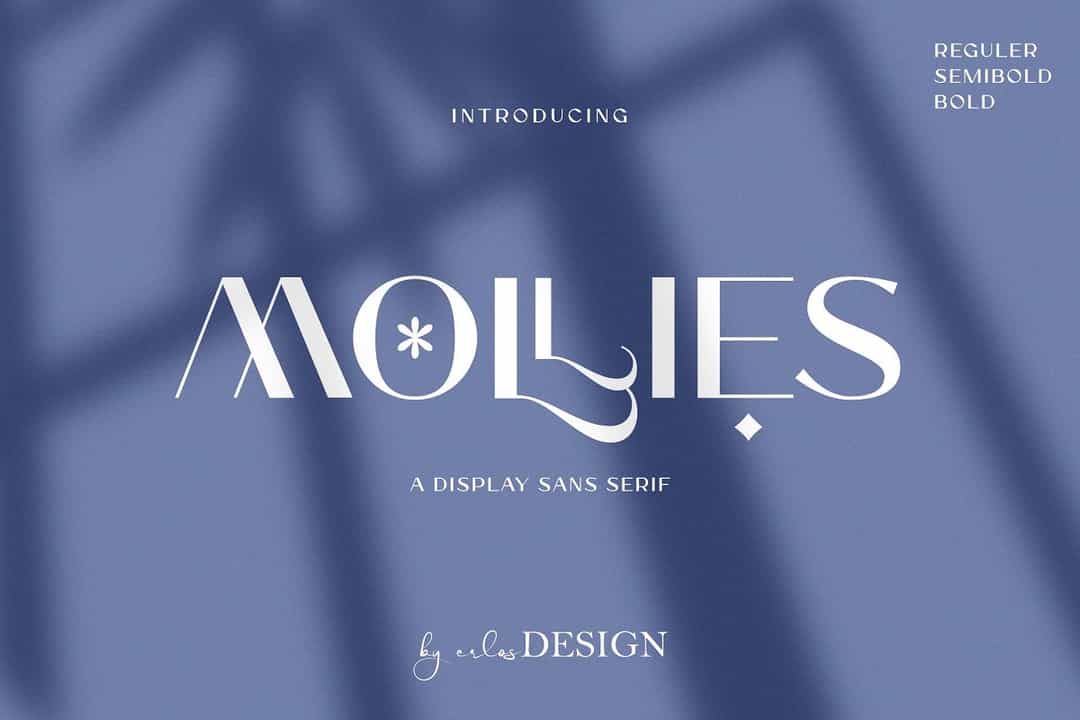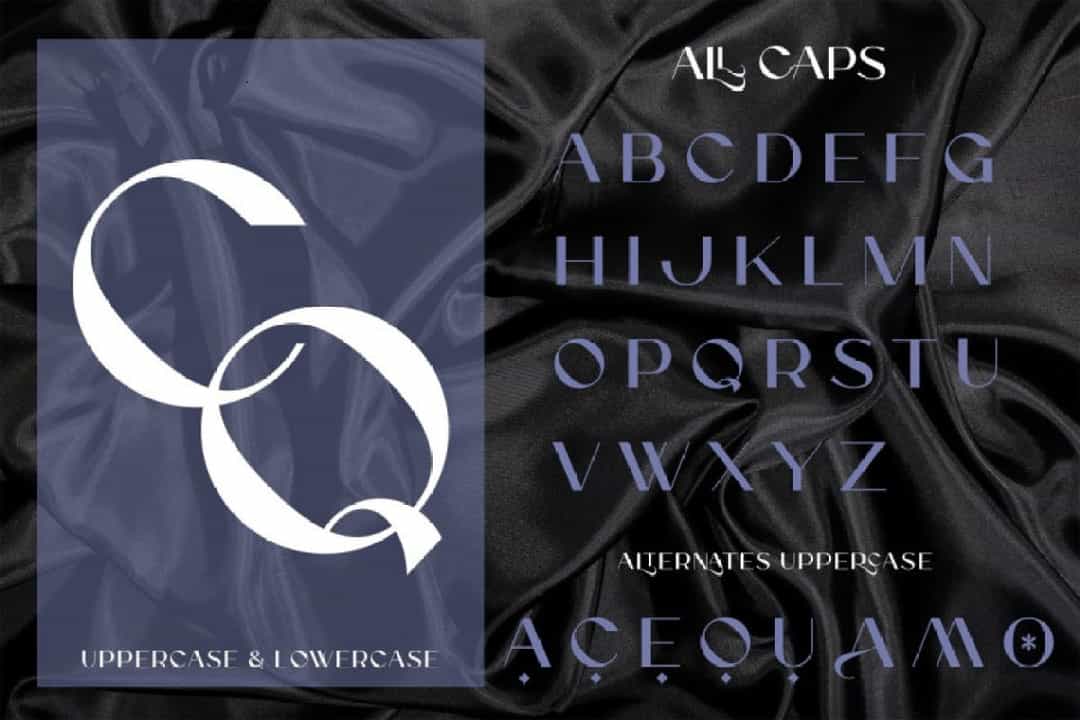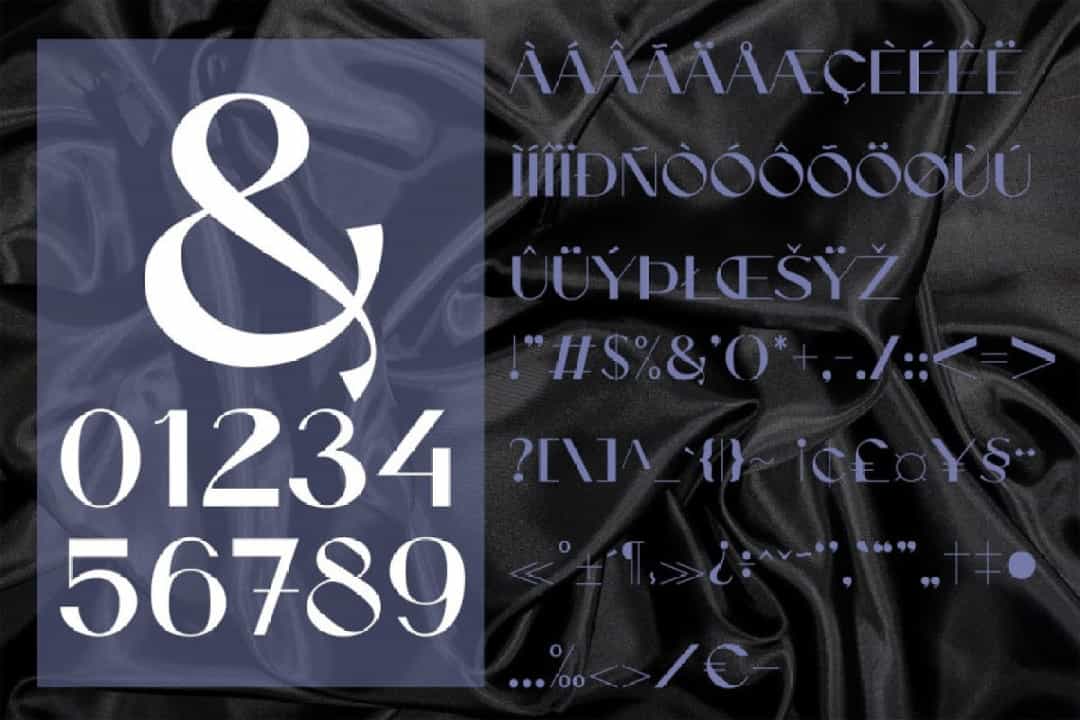
Mollies is a contemporary font that adds the perfect touch of class to any project. Available in three weights – regular, semi bold and bold – it makes an impactful statement in posters, postcards, books, book covers, ads logos websites logos or any other medium where visual appeal matters.